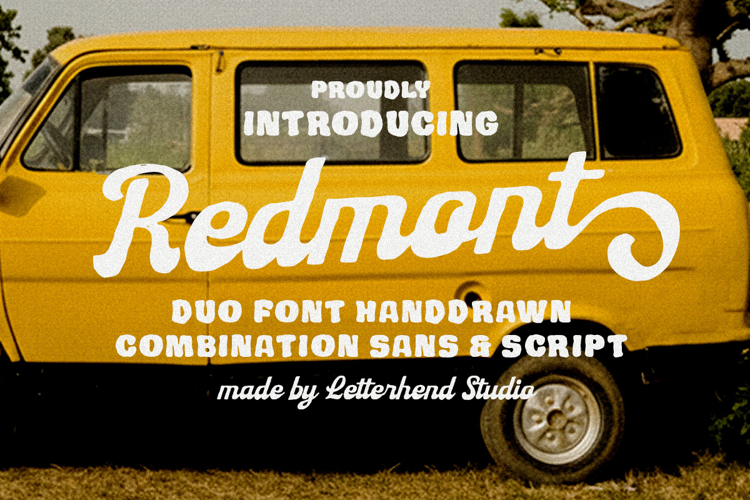
Redmont Sans Font
Sans Style
Script Style
Redmont font duo, this font feels like a sunny road trip in the 70s — handdrawn, bold, and full of character. the script brings smooth, friendly curves while the sans adds balance and clarity, making the combo playful yet readable.